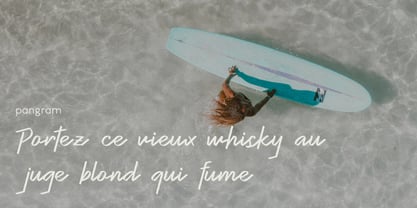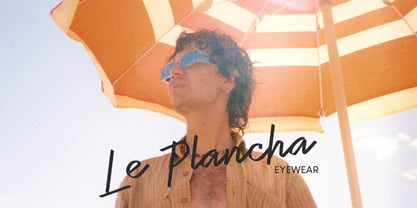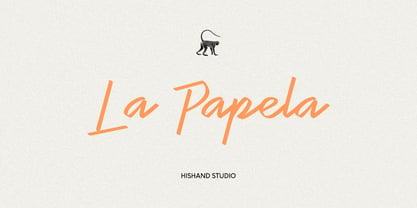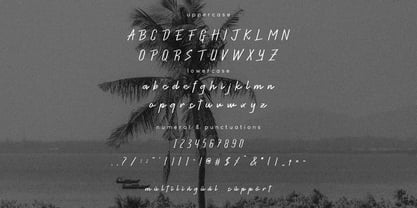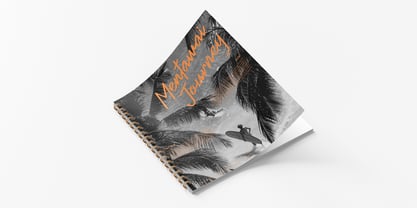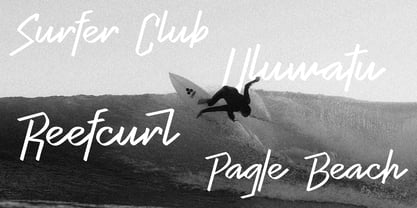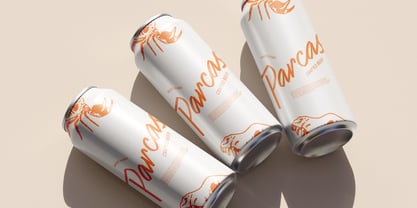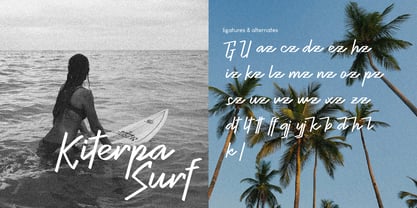
La Papela
The La Papela Font Family was designed by Putu Dody Permana and published by Hishand Studio. La Papela contains 1 styles. More about this family
La Papela is a tropical-inspired script font created to bring a relaxed, fresh, and carefree feeling into every design. With its smooth handwritten strokes, natural flow, and expressive curves, La Papela captures the energy of sunny days, beach vibes, and creative summer moments. The font feels casual yet stylish, making it perfect for branding, café menus, surf designs, social media graphics, packaging, posters, travel content, and lifestyle projects that need a warm and refreshing touch.
Its handcrafted style gives every word artistic appearance while still maintaining excellent readability. La Papela works beautifully for both bold headlines and signature-style typography, adding movement and character without feeling too formal. The combination of clean structure and organic flow makes it versatile for modern creative projects across both print and digital media. La Papela brings a fresh, relaxed, and naturally expressive feel that fits perfectly with summer-inspired designs and casual creative projects. Complete with
- uppercase
- lowercase
- ligatures
- swashes
- multilingual support